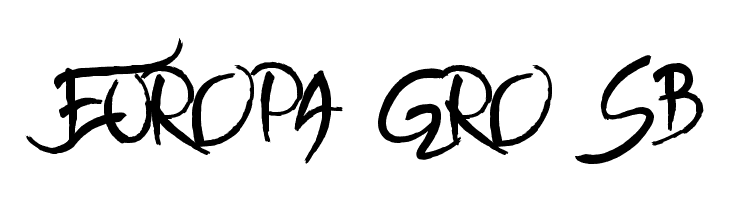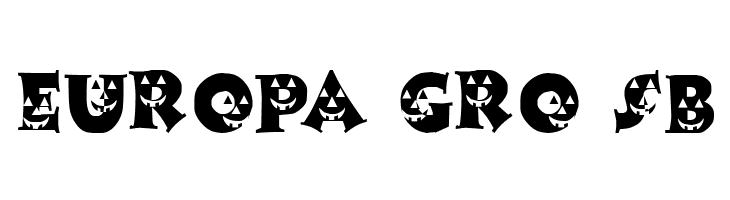
• Vinegar
( Jelloween - T. Koster - jelloween.deviantart.com )
A classic serif font with high contrast and elegant strokes.
• PWHaunted
( Peax Webdesign - www.peax-webdesign.com/goodies.html )
A bold, playful font with a spooky, Halloween-inspired design.
• Hallowed Eve Sample
( Phelan Riessen - phelanriessen.com )
A bold, dripping font ideal for spooky, Halloween-themed designs.
• HalloCuties
A decorative Halloween-themed font with playful and spooky icons.
• Tarentula's Web
A spooky, web-patterned decorative font ideal for Halloween themes.
• JMHHallowen2017-Regular
( Joorgemoron@gmail.com )
A spooky, jagged font perfect for Halloween themes.
• KG SKELETON
( Katz Fontz - katzfonts.50megs.com/kg.html )
A Halloween-themed decorative font with skulls and bats integrated into the characters.
• The space between Us Perosnal Use
( LJ Design Studios - www.ljdesignstudios.com )
A decorative, hand-drawn font with bold, sweeping strokes and intricate details.
• Jackie O'Lantern
( La Vie Dansante - )
A bold, Halloween-themed decorative font featuring jack-o'-lantern and pumpkin motifs.
• LCR Pumpkin Face
( LeChefRene - members.aol.com/lcrfonts/ )
A Halloween-themed font with jack-o'-lantern faces in each character.